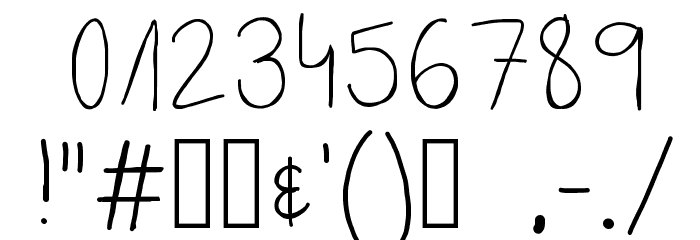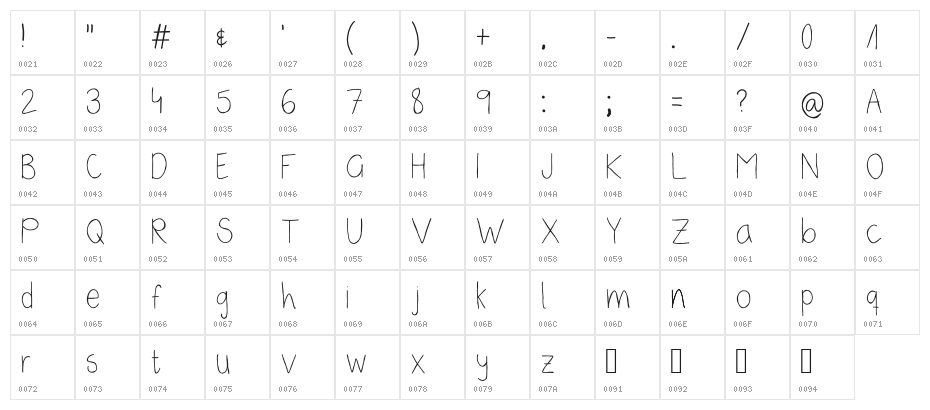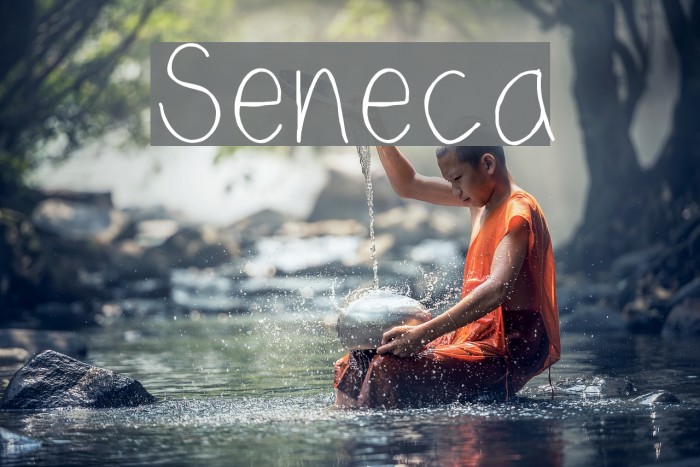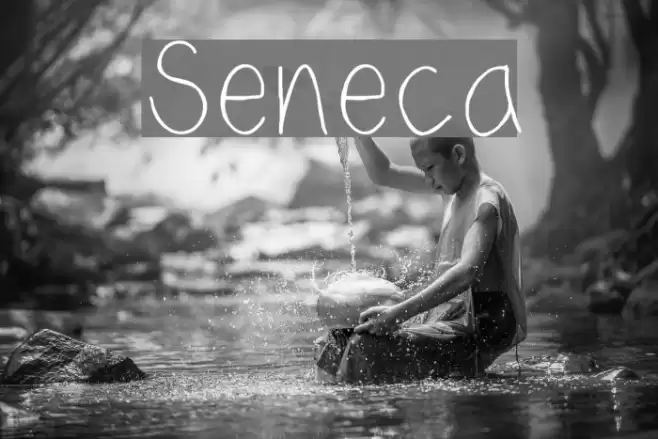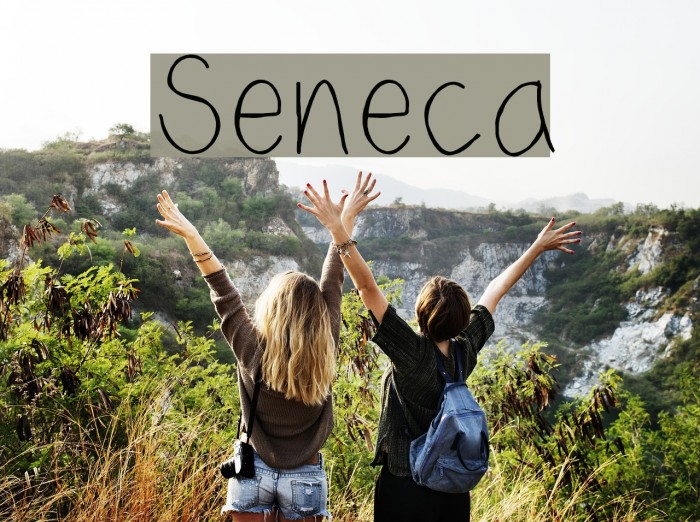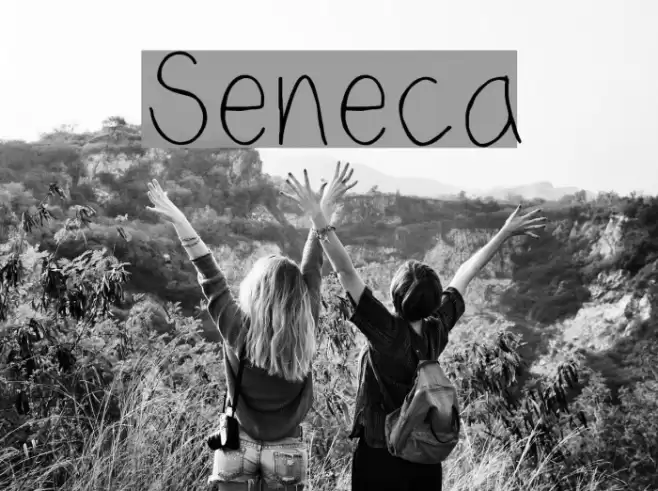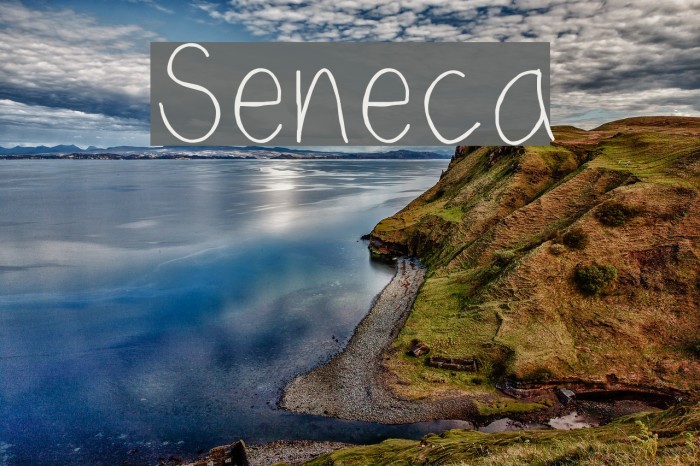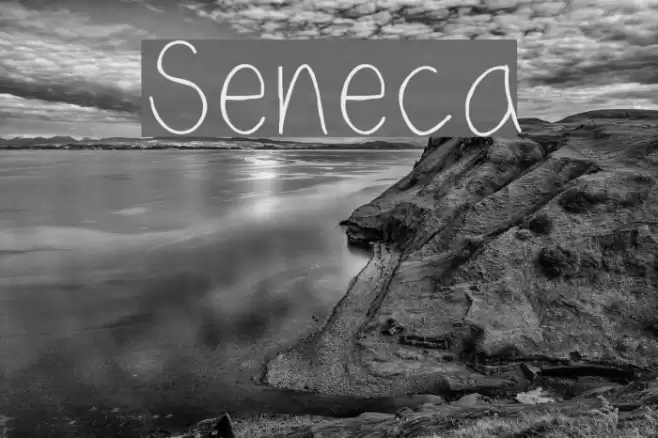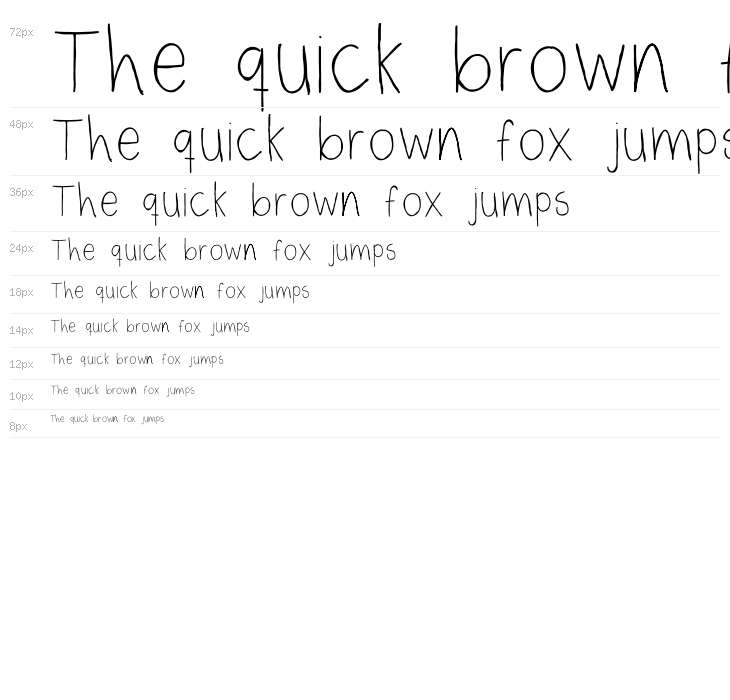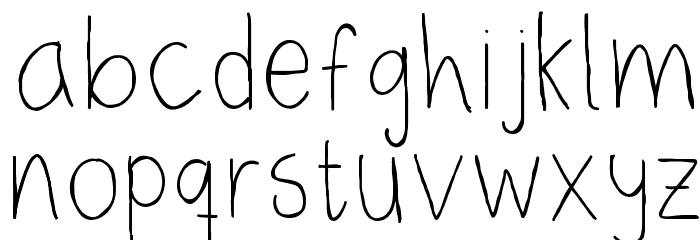
Seneca Font
Seneca Description
This font features a playful and casual handwritten style, characterized by its thin strokes and slightly irregular letterforms. The uppercase and lowercase letters maintain a consistent height, giving it a uniform appearance despite its informal design. The numerals and special characters follow the same whimsical style, making it suitable for creative projects. The overall look is friendly and approachable, ideal for conveying a sense of warmth and personality.
| Proposed Projects | Ideal for greeting cards, children's books, casual invitations, and personal branding. |